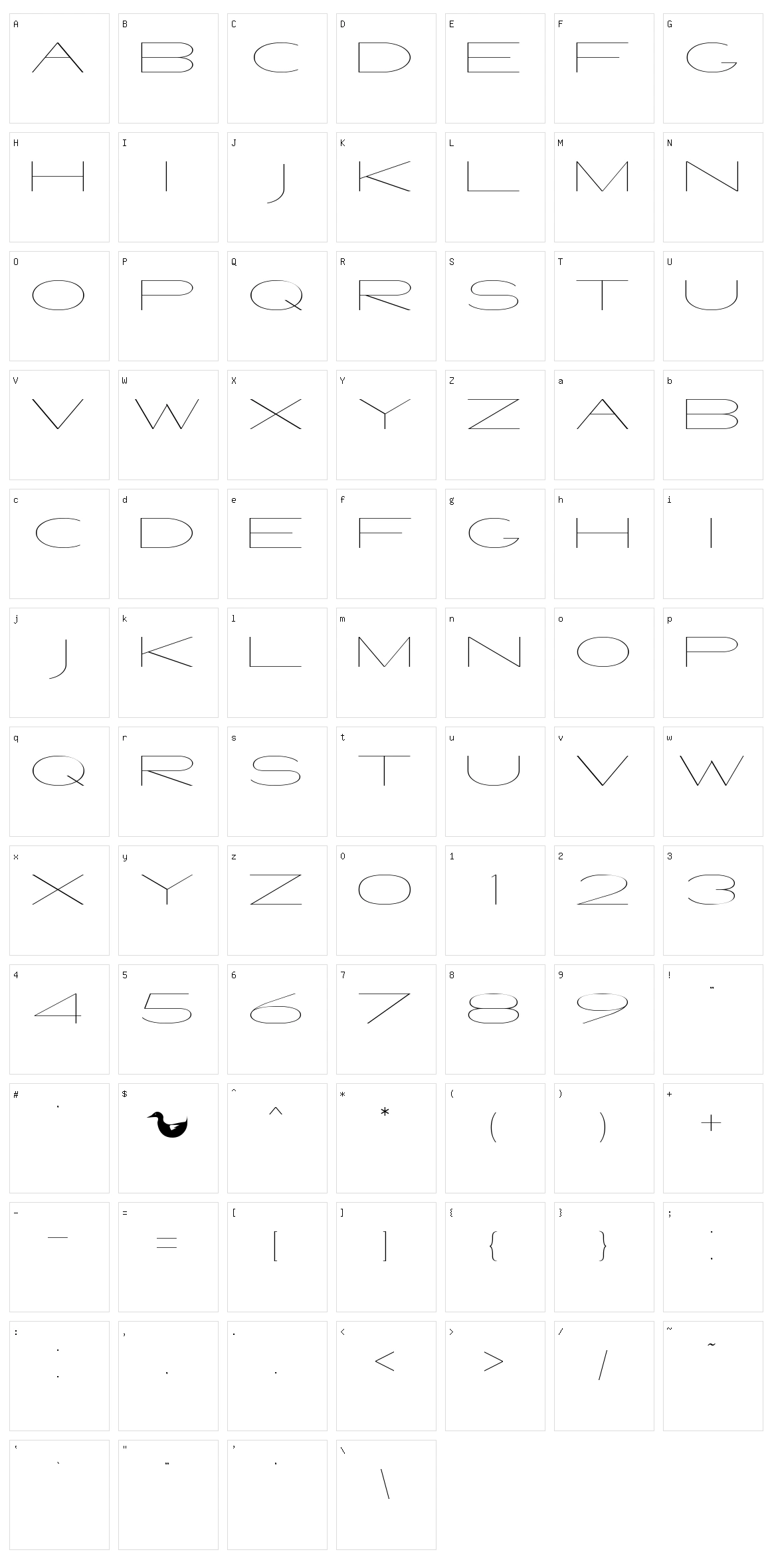
The free font Venetian Sound System is carefully designed by James Morgan, showcasing a thoughtful balance of creativity and usability and falls under the Sans serif font style. When you download the ZIP file, it contains only 5.28 KB of font files, making it lightweight and quick to download. Please review the license details below to understand permitted usage and distribution rights. If license information is not available, we recommend using this font for personal projects only or contacting the author directly for commercial usage permissions.